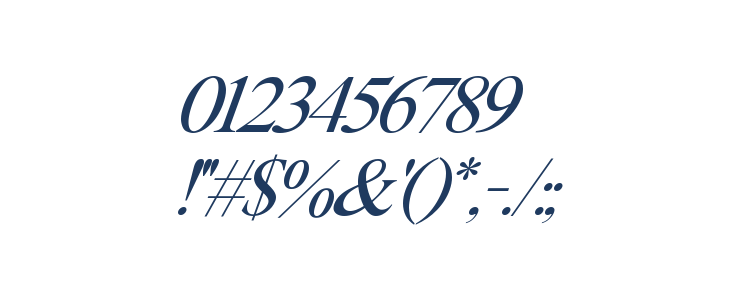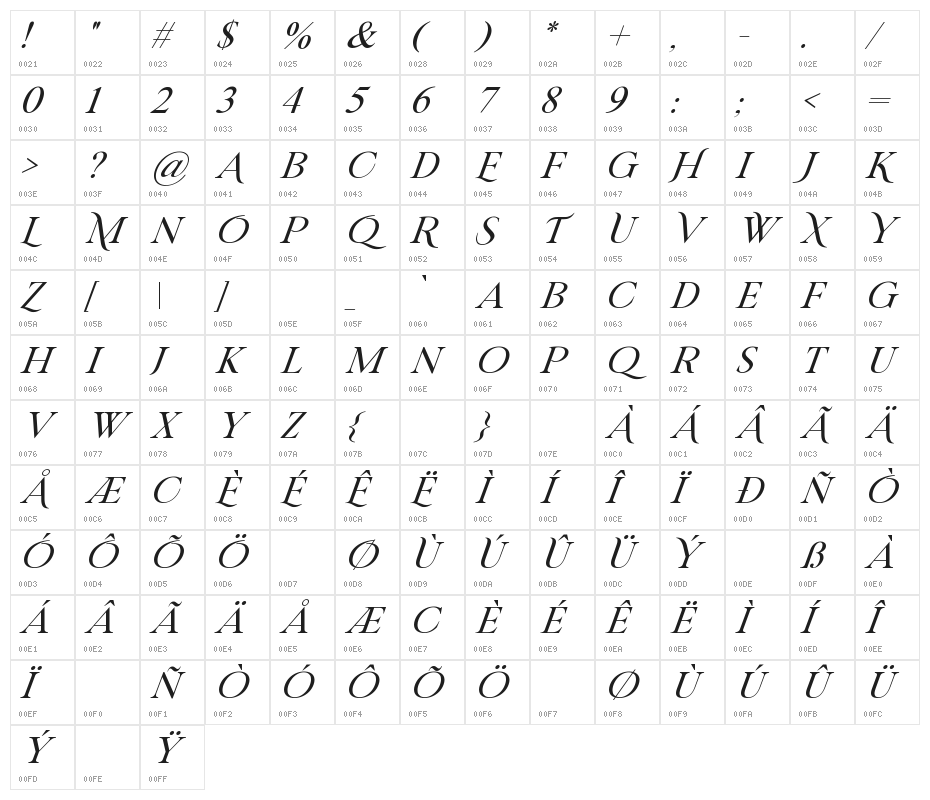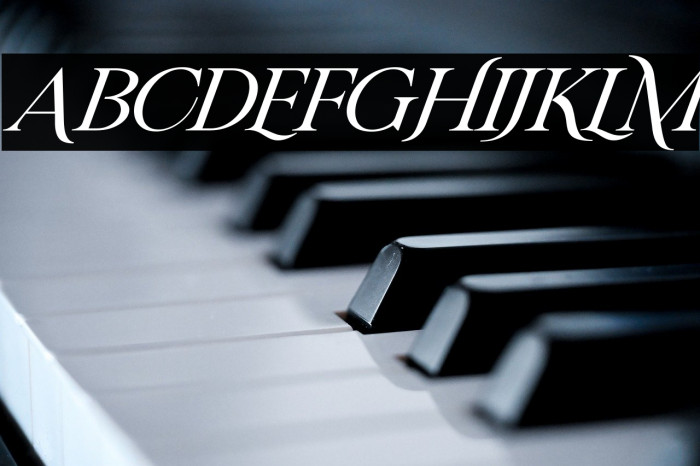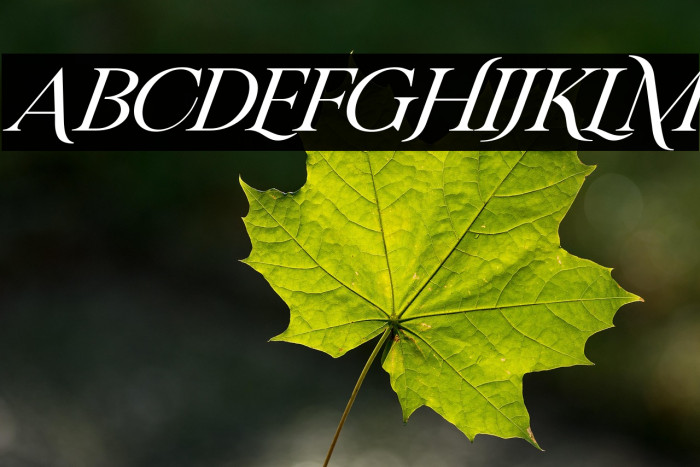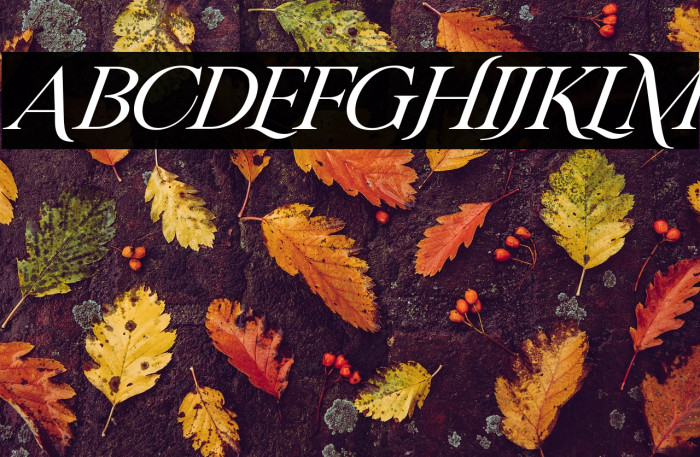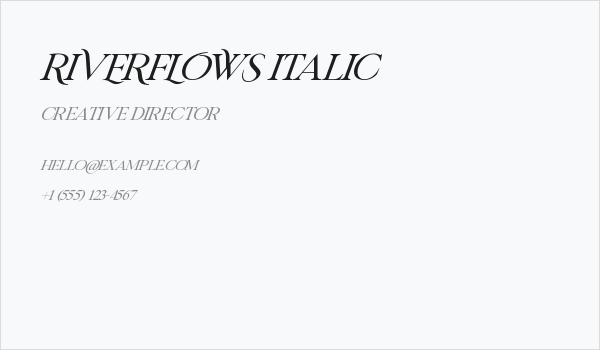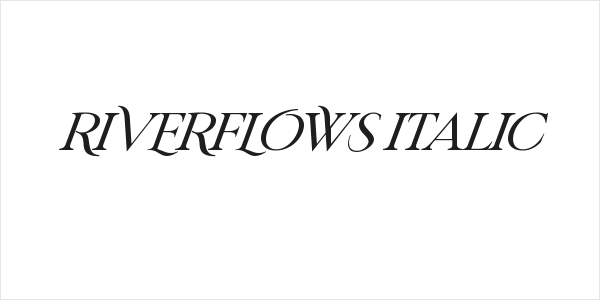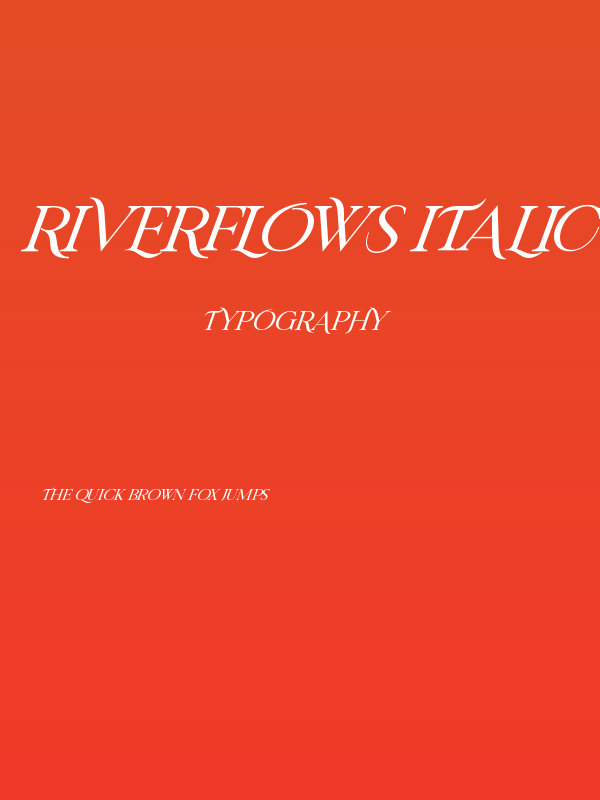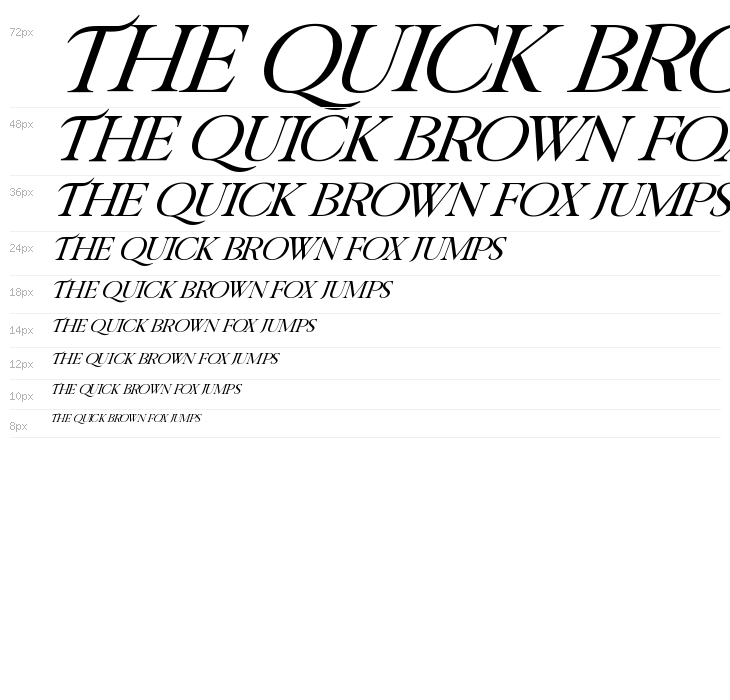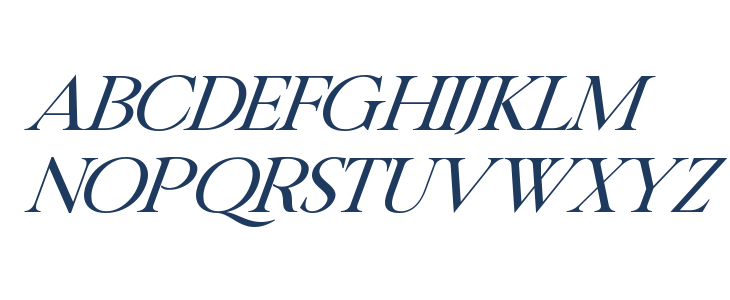
RIVERFLOWS Italic Font
RIVERFLOWS Italic Description
This elegant and flowing font features a classic italic style with smooth, sweeping curves and a refined appearance. The characters are slightly slanted, giving a sense of motion and sophistication. The uppercase letters are bold and commanding, while the lowercase letters maintain a graceful continuity. The numerals are well-proportioned and align seamlessly with the overall design. Special characters are crafted with the same attention to detail, ensuring consistency throughout. This font exudes a timeless charm, making it suitable for a variety of applications.